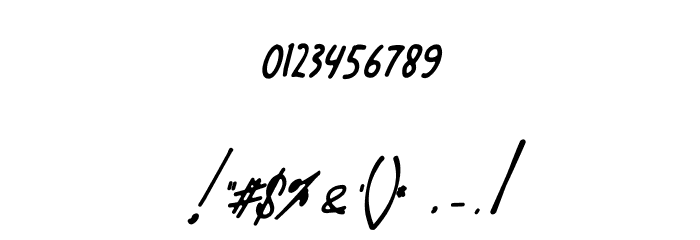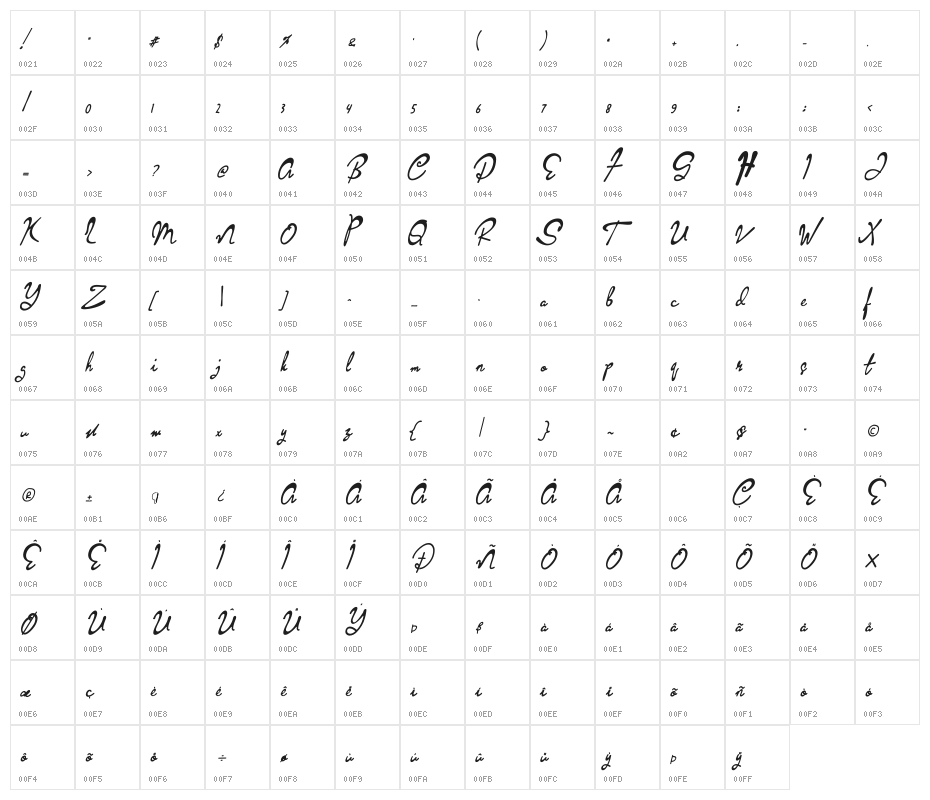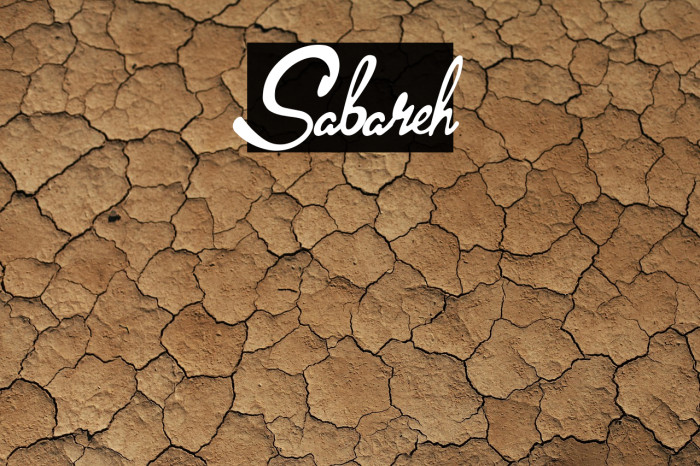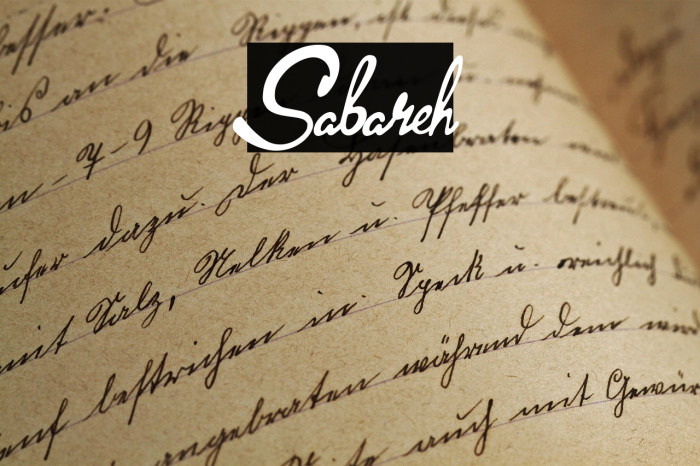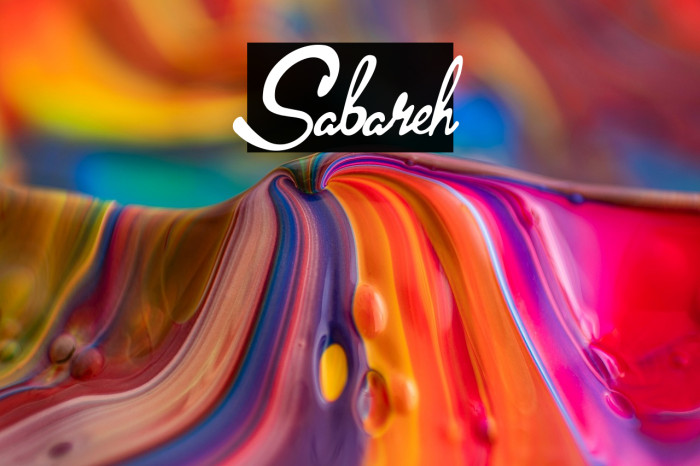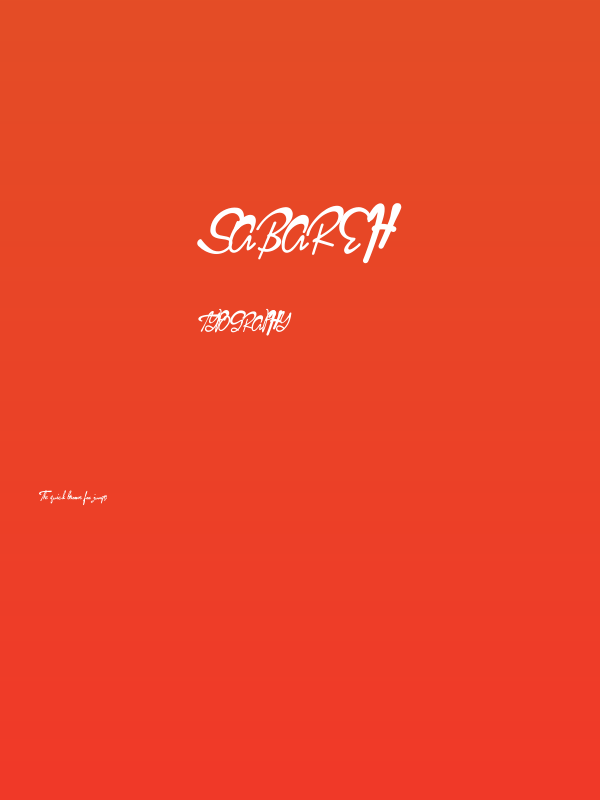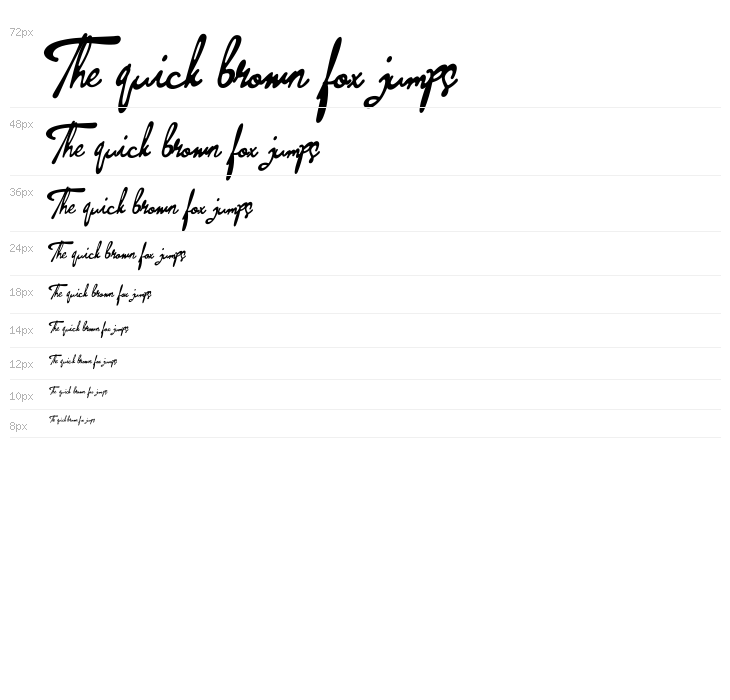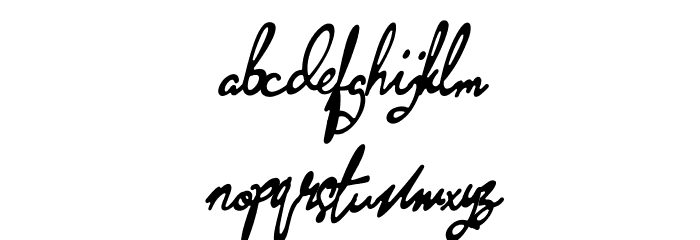
Sabareh Font
Sabareh Description
This font features a dynamic and expressive script style, characterized by its flowing, cursive letterforms. The uppercase letters are bold and sweeping, with a sense of movement and flair, while the lowercase letters maintain a consistent, elegant flow. The numerals and special characters are designed to complement the overall aesthetic, adding a touch of sophistication. The font's unique style makes it suitable for creative and artistic projects, where a personal and handwritten touch is desired.
| Proposed Projects | Ideal for wedding invitations, greeting cards, branding projects, and artistic designs. |